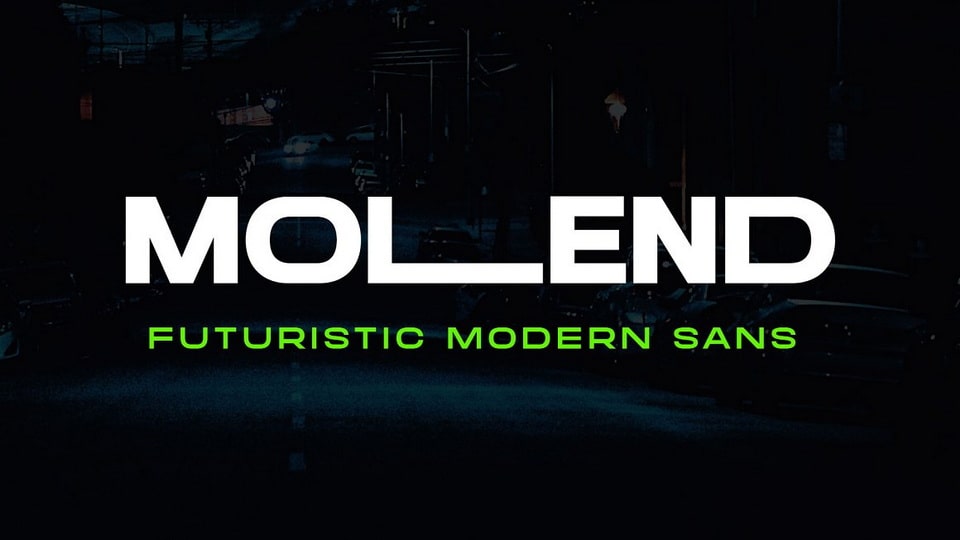
Download Molend is a unique display font that allows you to customize the letter width to create one-of-a-kind designs. With its futuristic, techno, brutalist, and experimental styles Molend font is inspired by kinetic typography and urban style.